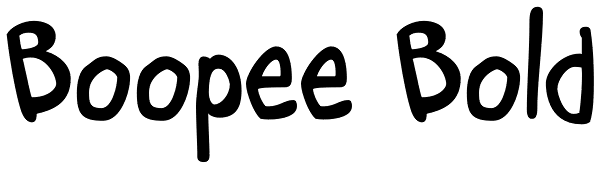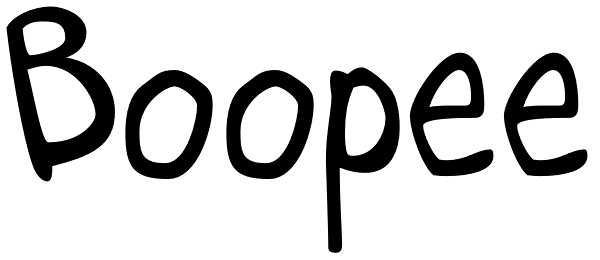
Boopee
About as tidy as the school cafeteria after lunchtime, Boopee gives you the impression that mistakes are part of its charm. Not big on staying on the lines, Boopee is freckle-faced, friendly and easy to read.